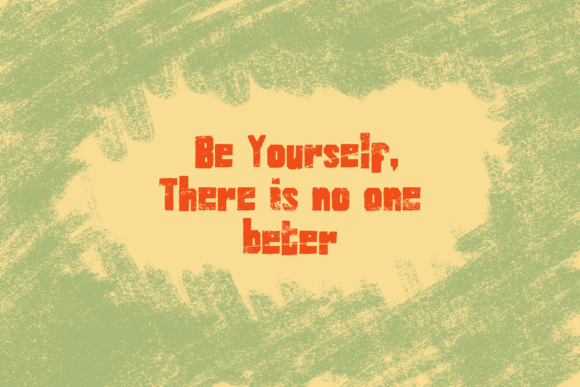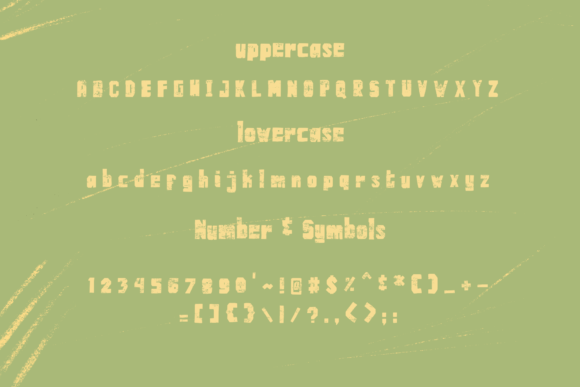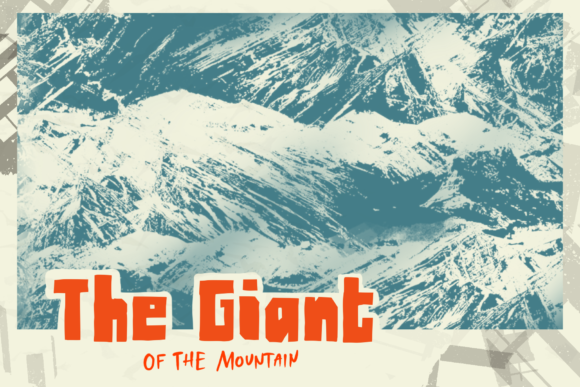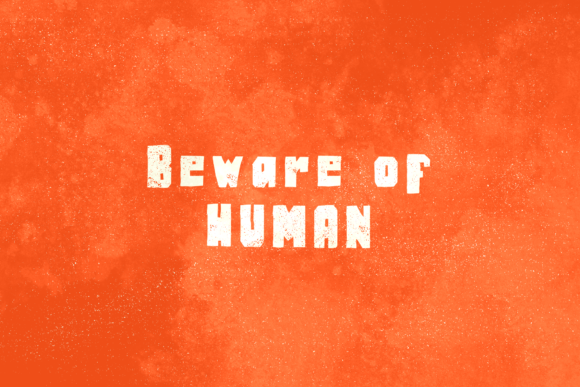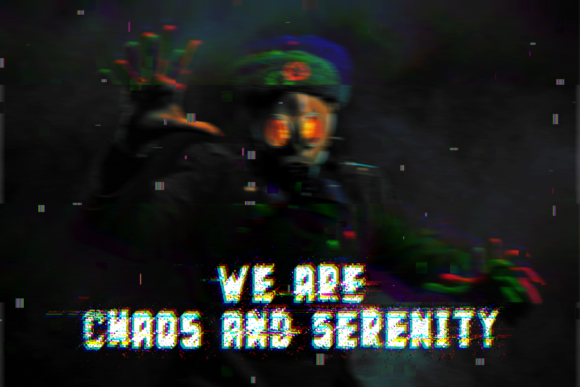
Introduction to Kong Tycoon Font
Kong Tycoon is a cool, bold and thick lettered display font.
It will elevate a wide range of crafting ideas, from cards, to branding, labels and much more Add it confidently to your favorite creations and let yourself be amazed by the outcome generated.
Kong Tycoon Font offers exceptional quality and versatility, making it a valuable addition to your design toolkit. Whether you’re creating for personal projects or commercial use, Kong Tycoon Font delivers professional results.